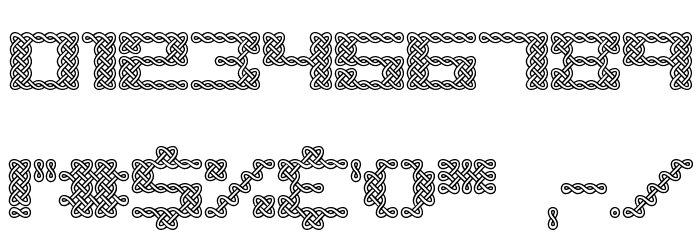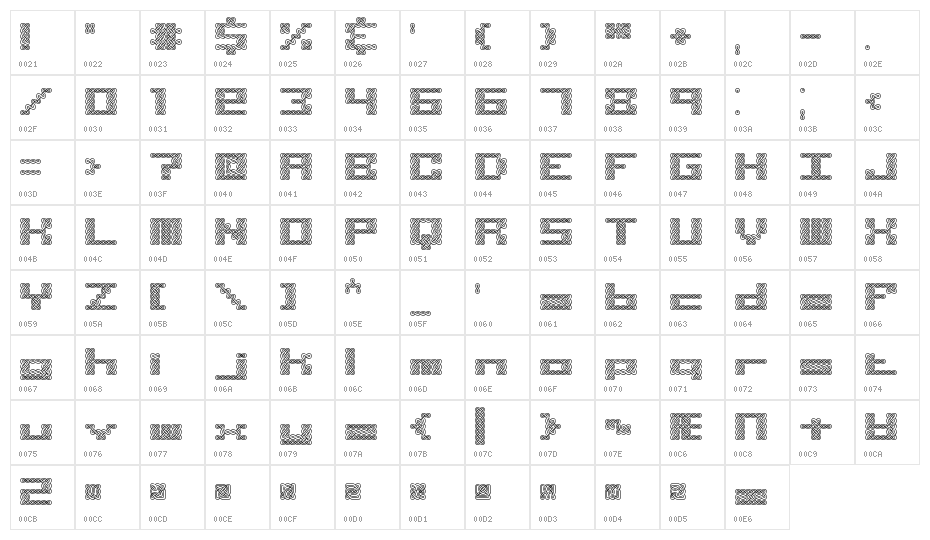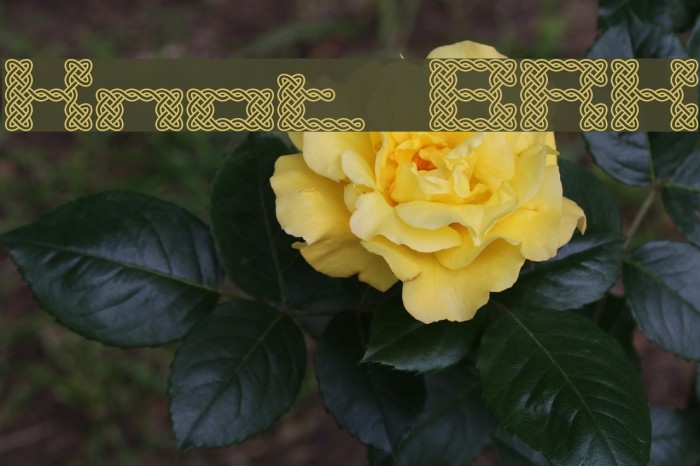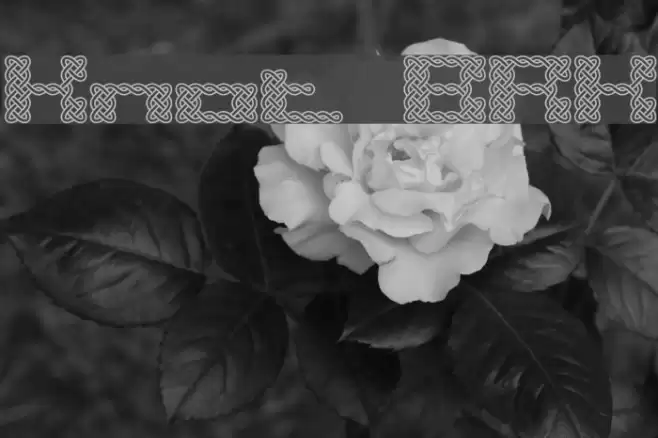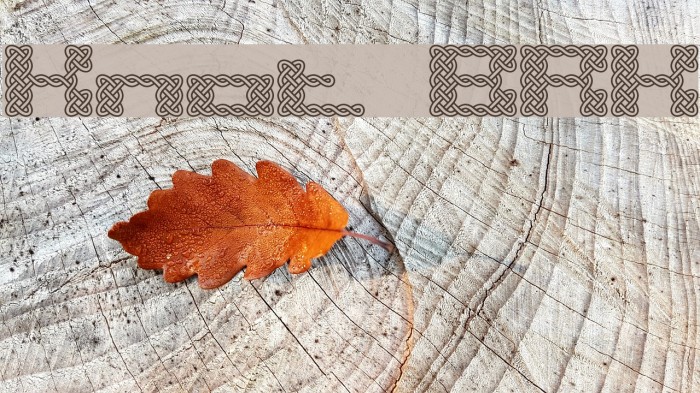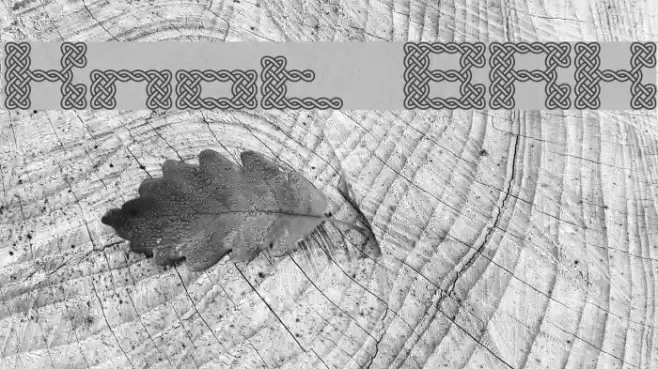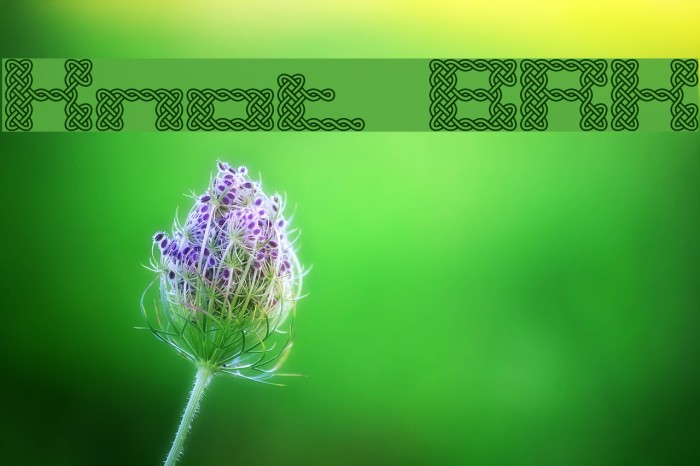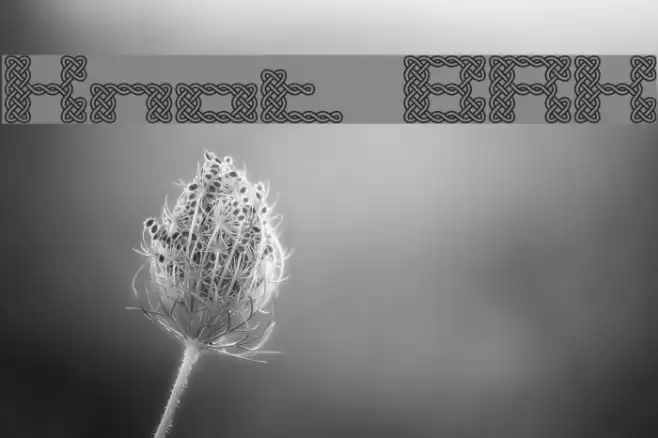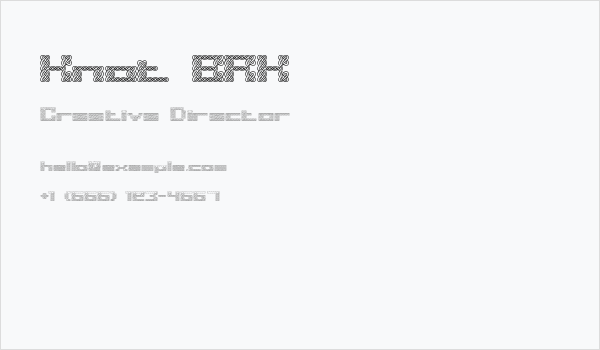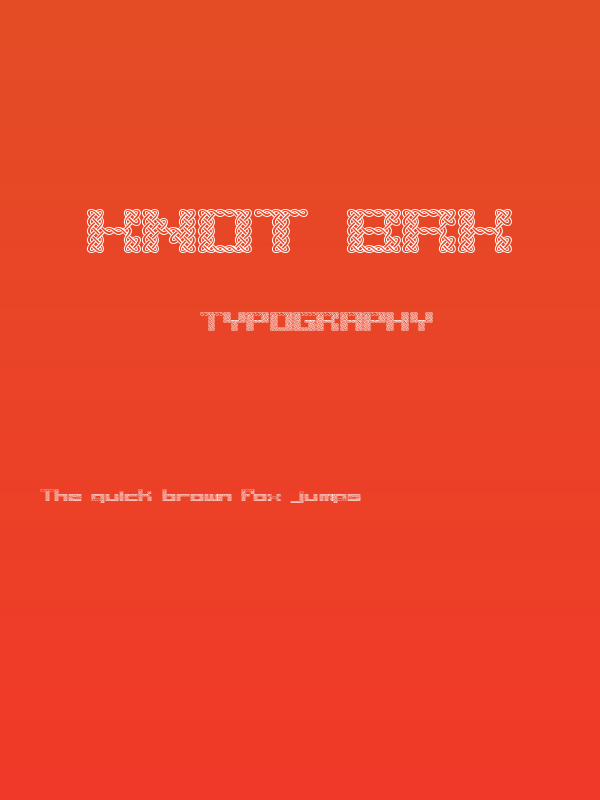
Knot BRK Font
Knot BRK Description
This font features an intricate, interwoven design reminiscent of Celtic knots. Each character is crafted with a continuous line that loops and twists, creating a complex and decorative appearance. The style is highly ornamental, with a strong emphasis on geometric patterns and symmetry. The uppercase and lowercase letters, as well as the numbers and special characters, all follow this unique knotted pattern, making it a standout choice for projects that require a touch of elegance and artistry. The font's detailed design may not be suitable for small sizes but excels in larger formats where its intricate details can be appreciated.
| Proposed Projects | Ideal for use in decorative projects, such as invitations, posters, and branding materials that require a unique and artistic touch. |